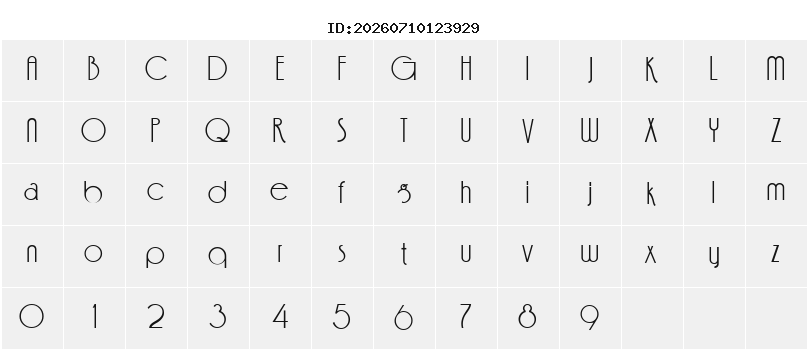
Feena Casual Preview
• Font Name: Feena Casual
• Full Font Name: Feena Casual
About Feena Casual.ttf
Feena Casual.ttf is a modern, elegant sans-serif font designed for ultimate readability and visual harmony. Perfect for branding, headlines, web design, and print materials.